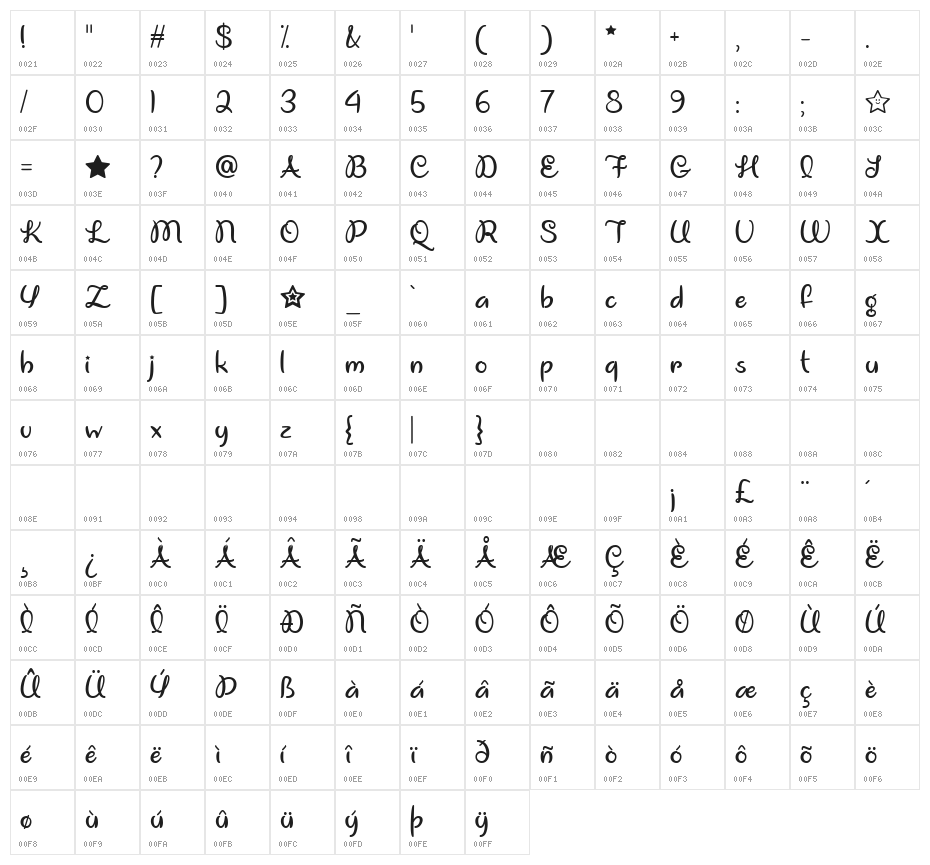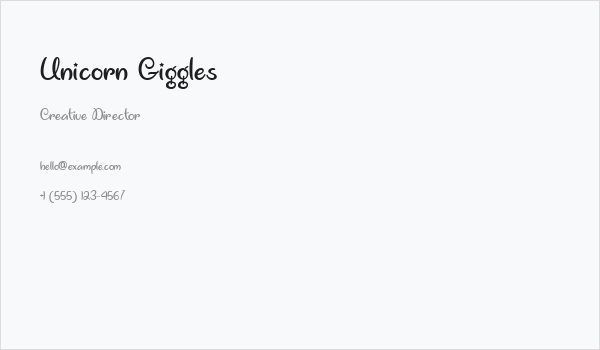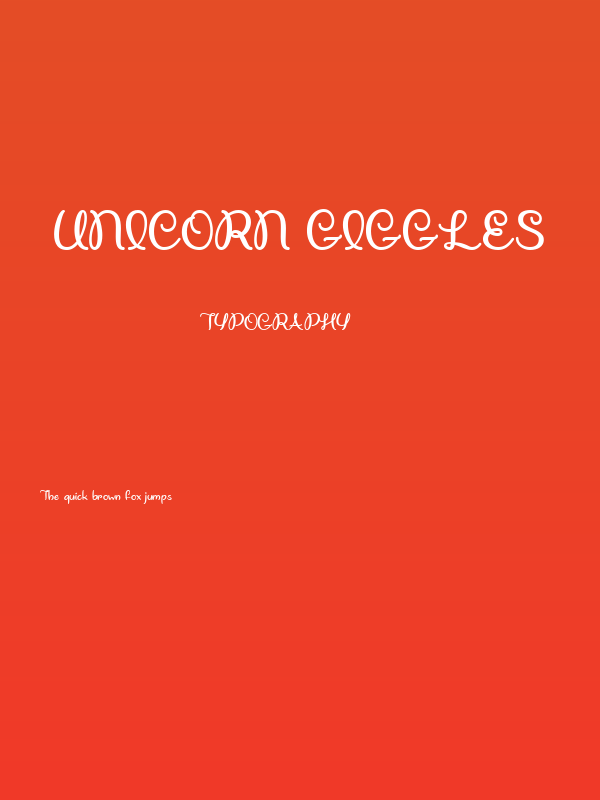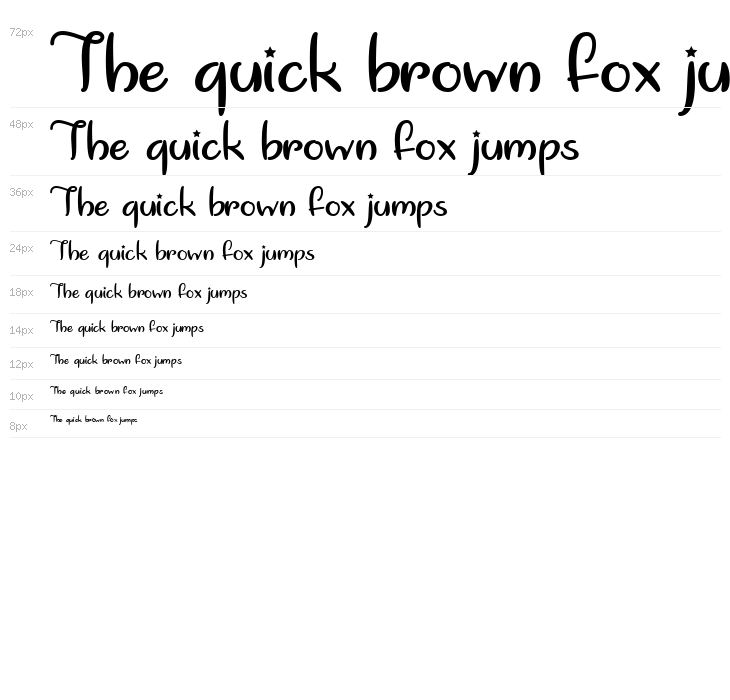
Unicorn Giggles Font
Unicorn Giggles Description
This whimsical and playful font features a unique blend of rounded and curly elements, giving it a lively and cheerful appearance. The uppercase letters are characterized by their decorative loops and swirls, while the lowercase letters maintain a more consistent and smooth flow. The numerals are bold and rounded, complementing the overall playful style. Special characters are creatively designed, adding to the font's charm. This font is perfect for projects that require a fun and lighthearted touch.